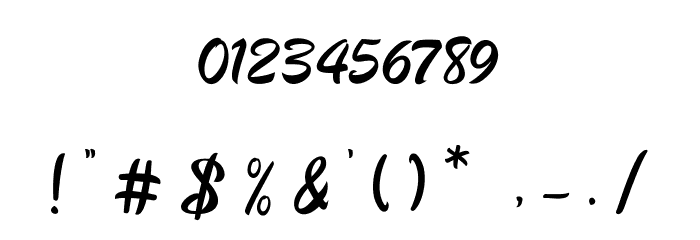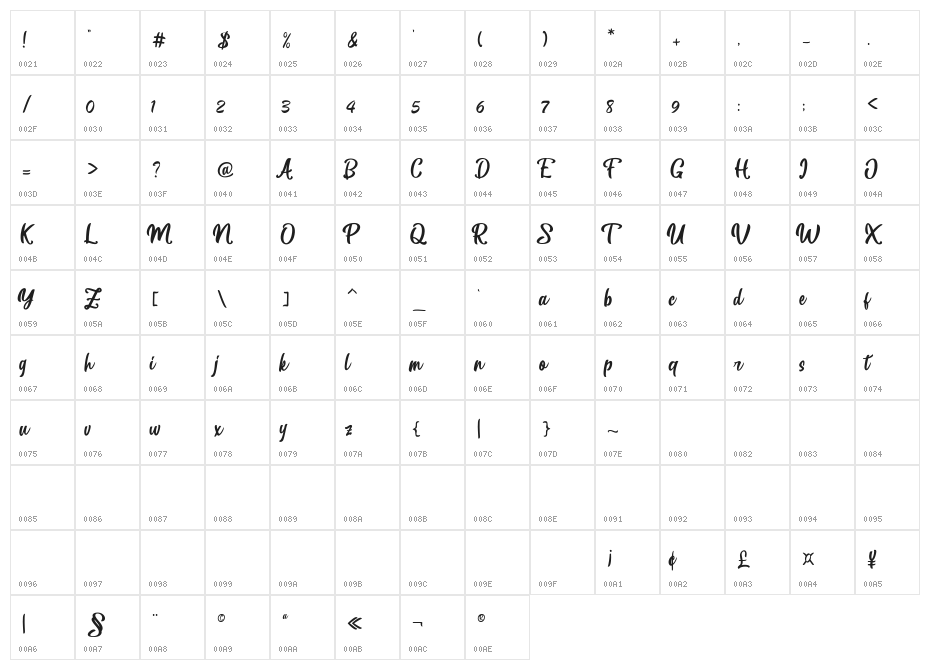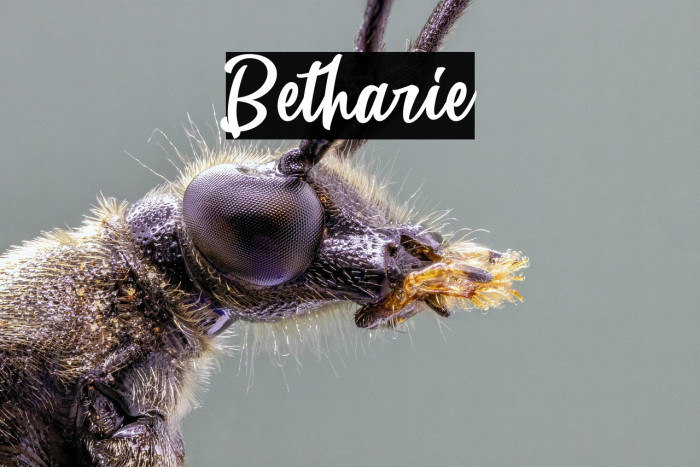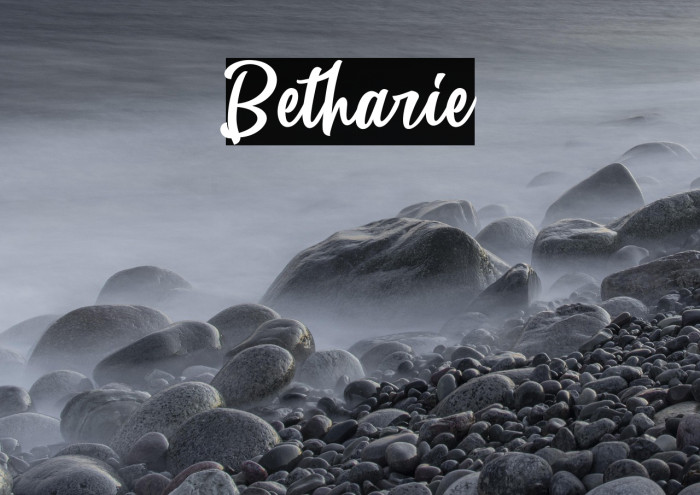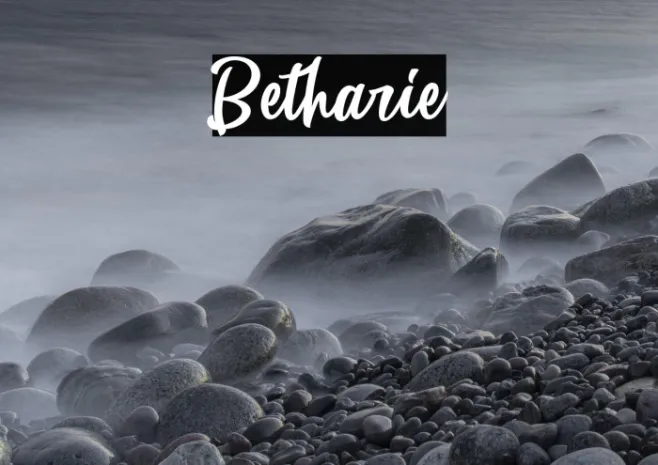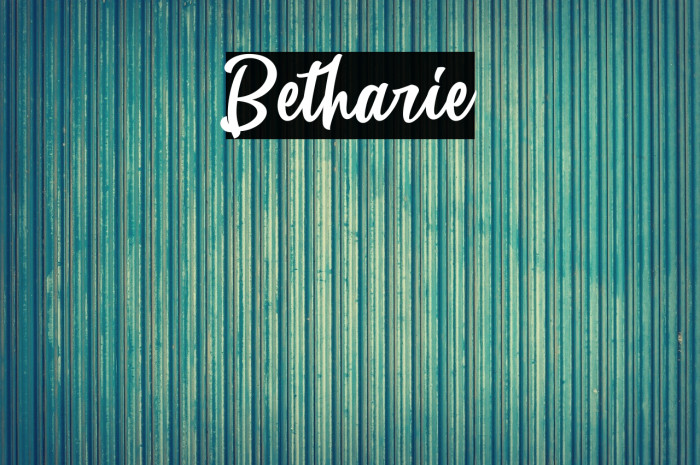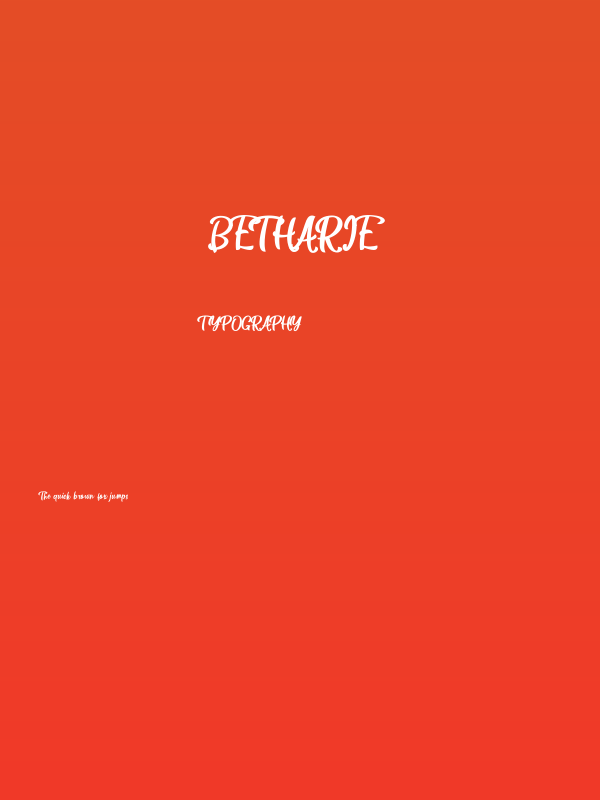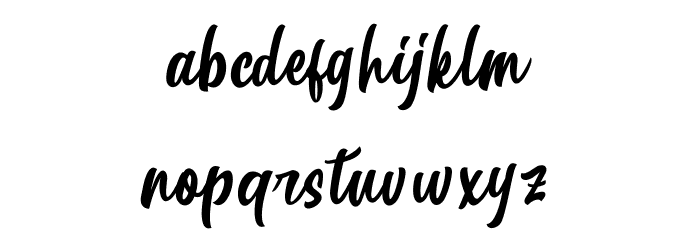
Betharie Font
Betharie Description
This font features a flowing, cursive style with elegant, sweeping curves and a handwritten aesthetic. The uppercase letters are bold and prominent, while the lowercase letters maintain a consistent fluidity, creating a harmonious balance. The numerals are distinct and easy to read, complementing the overall script style. Special characters are designed with the same attention to detail, ensuring they integrate seamlessly with the rest of the font. This font exudes a sense of sophistication and charm, making it ideal for projects that require a personal touch.